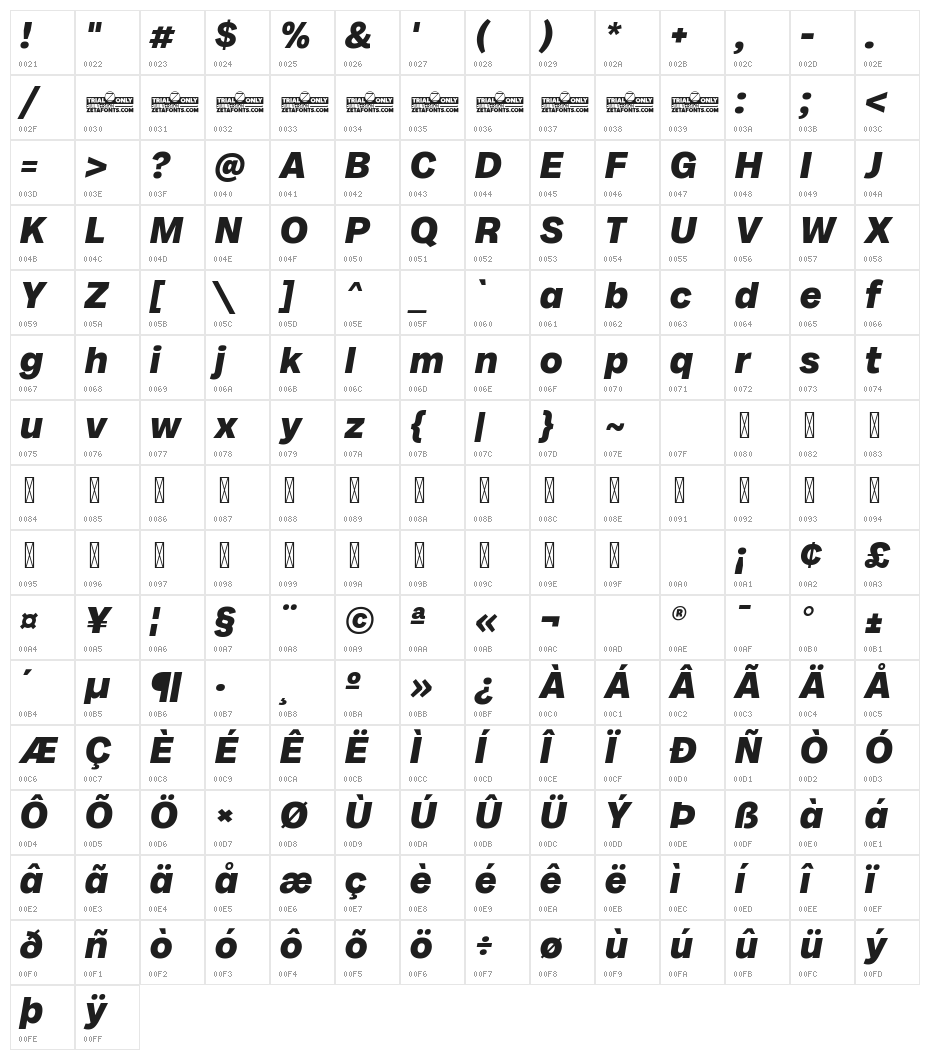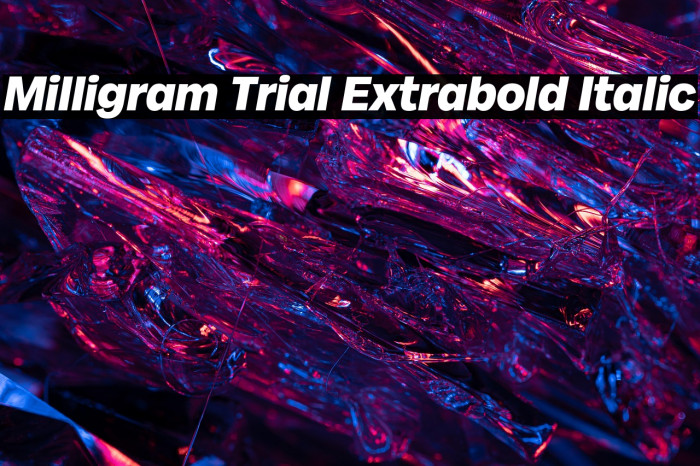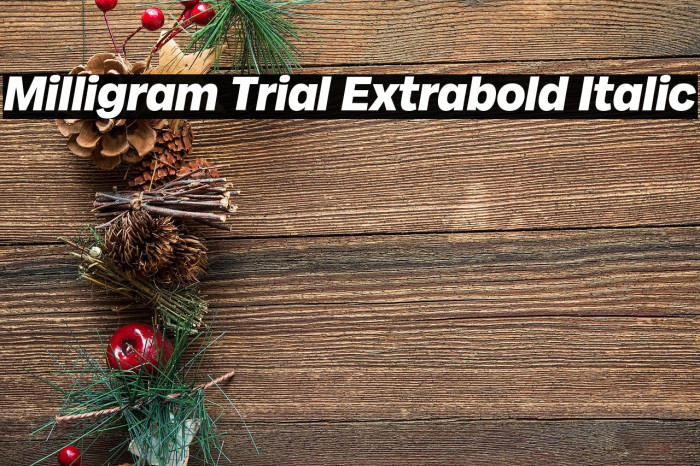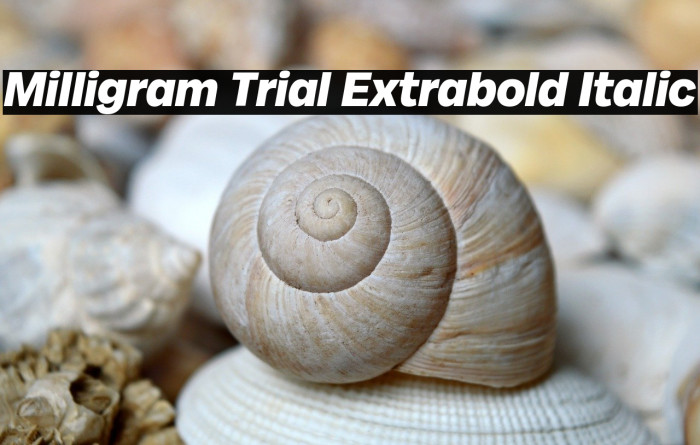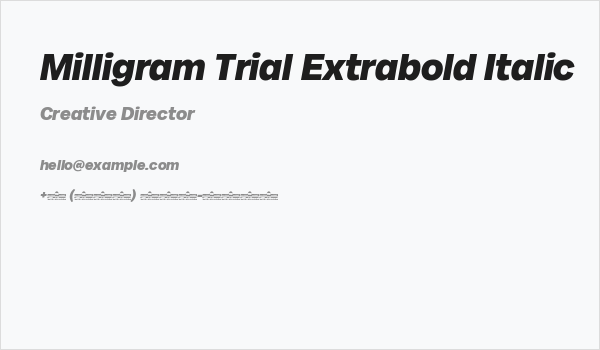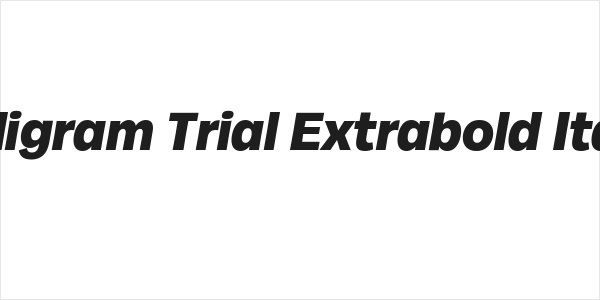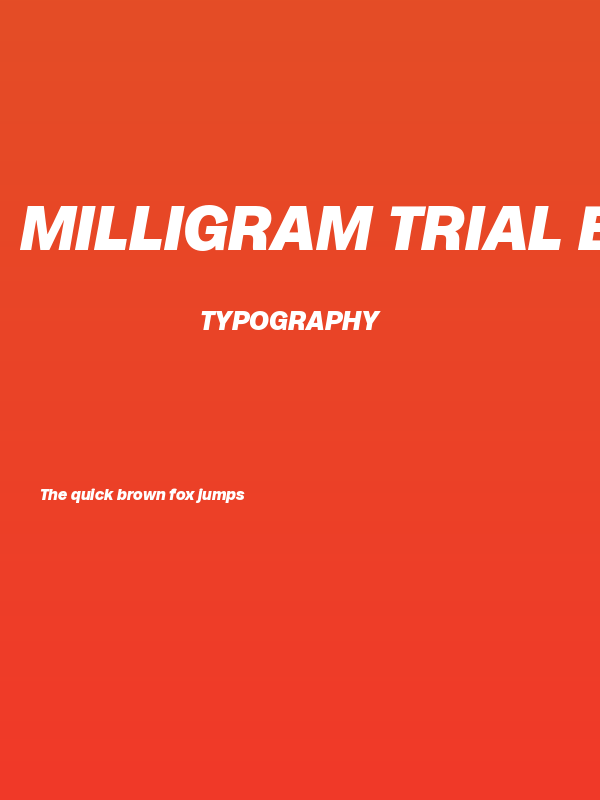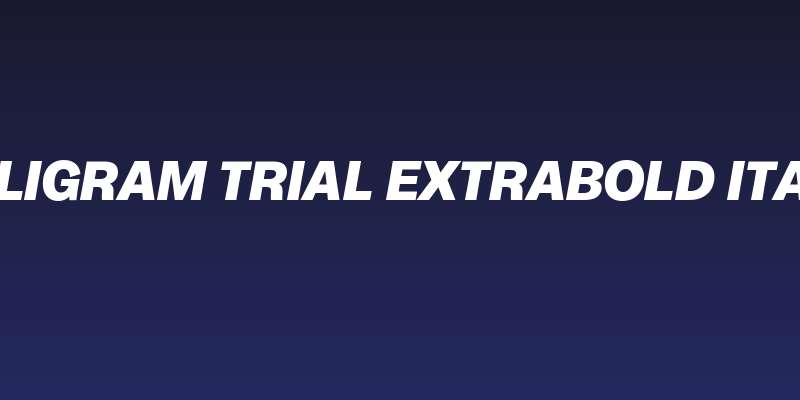
Milligram Trial Extrabold Italic Font
Milligram Trial Extrabold Italic Description
This font exhibits a bold and dynamic presence with its extra-bold weight and italic style. The characters are designed with a strong emphasis on horizontal strokes, giving it a powerful and assertive look. The italic slant adds a sense of motion and modernity, making it suitable for contemporary designs. The uppercase and lowercase letters maintain a consistent style, ensuring readability and visual harmony. The numerals and special characters are crafted to match the boldness of the alphabet, providing a cohesive appearance across all text elements.
| Proposed Projects | Ideal for branding, advertising, headlines, and any project requiring a strong visual impact. |